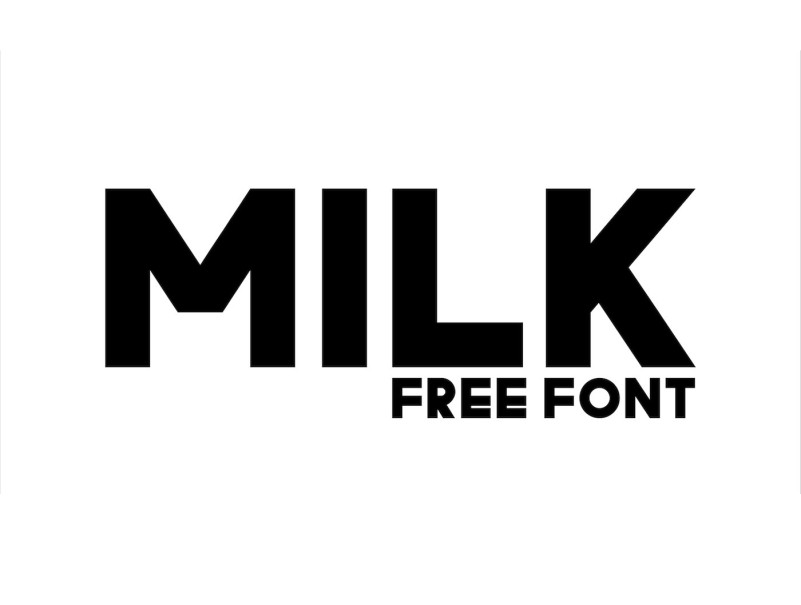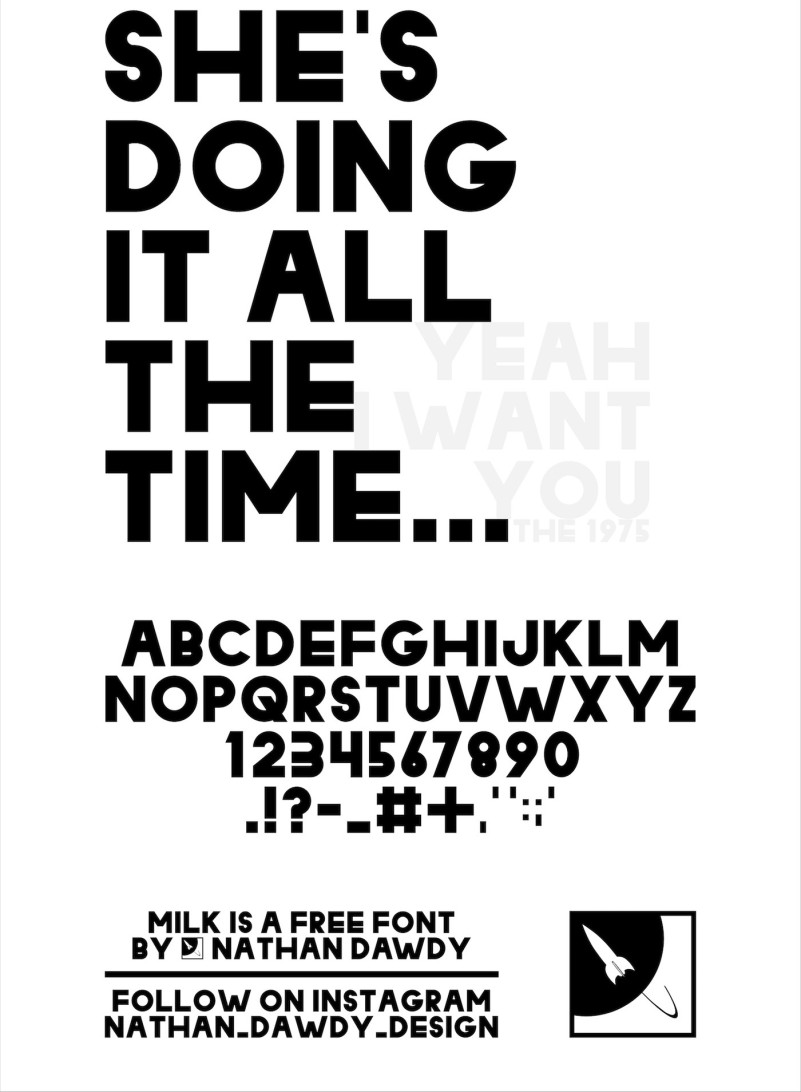
Milk Typeface
Milk Sans Serif Typeface is a clean humanist style font that is absolutely perfect for editorial headlines. Can a practical font (meaning legible, usable) be created which has characters that are a bold weight with a middle bar that is purposefully low? This release containing only uppercase characters, numbers, and some symbols, is the first in a series. Future releases will include the lowercase characters, additional symbols, and a different middle bar.